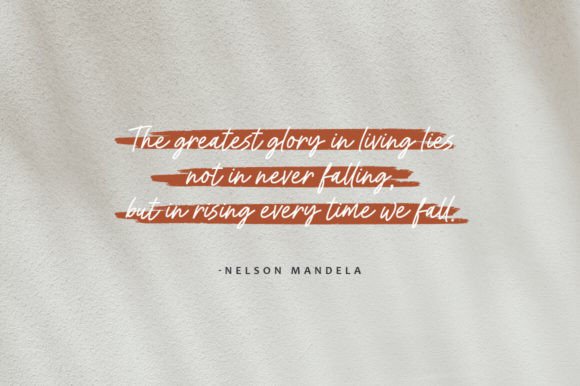
Hisdella Font: A Handwritten Font that Brings Life to Your Words
In the digital age, where communication is often reduced to mere text, finding a way to add a personal touch to your words can be a challenge. However, with Hisdella, a beautiful handwritten font, you can breathe life into your words and turn them into a visual poetry of strokes and curves. In this article, we’ll explore the unique features of Hisdella and how it can elevate your designs to a new level of authenticity and personality.
What is Hisdella?
Hisdella is a carefully crafted handwritten font that captures the essence of genuine handwriting in a digital realm. Each character in Hisdella is a testament to the art of penmanship, with a unique charm that resonates with authenticity. Whether you’re creating personal messages, invitations, or adding a touch of authenticity to your designs, Hisdella adds a warm and human touch.
Key Features of Hisdella
- Handwritten with care: Hisdella is crafted with care to retain the natural flow and irregularities of real handwriting, creating a unique charm that resonates with authenticity.
- Perfect for personal projects: Hisdella is perfect for projects that require a personal and approachable feel, such as personal messages, invitations, and social media posts.
- Authentic and unique: Hisdella’s unique character and handwriting style make it stand out from other fonts, adding a touch of personality to your designs.
The Art of Handwriting in a Digital Realm
Handwriting is an art form that has been around for centuries, with each stroke and curve telling a story. In the digital age, handwriting has taken on a new form, with fonts like Hisdella bringing the art of handwriting to the digital realm. With Hisdella, you can add a touch of personality to your designs, making them more relatable and engaging.
Benefits of Using Handwritten Fonts like Hisdella
- Adds a personal touch: Handwritten fonts like Hisdella add a personal touch to your designs, making them more relatable and engaging.
- Creates a unique identity: Hisdella’s unique character and handwriting style create a unique identity for your brand or personal project.
- Evokes emotions: Handwritten fonts like Hisdella evoke emotions and create a connection with the reader.
How to Use Hisdella in Your Designs
Hisdella is a versatile font that can be used in a variety of designs, from personal messages to business projects. Here are some tips on how to use Hisdella in your designs:
Design Tips for Using Hisdella
- Use it for headings and titles: Hisdella is perfect for headings and titles, adding a touch of personality and elegance to your designs.
- Pair it with other fonts: Hisdella can be paired with other fonts to create a unique and visually appealing design.
- Experiment with colors and textures: Hisdella can be used with a variety of colors and textures to create a unique and eye-catching design.
Why Choose Hisdella?
With so many fonts available, why choose Hisdella? Here are some reasons why Hisdella stands out from the rest:
Why Choose Hisdella?
- Unique and authentic: Hisdella is a unique and authentic handwritten font that adds a touch of personality to your designs.
- Perfect for personal projects: Hisdella is perfect for personal projects, such as invitations, social media posts, and personal messages.
In conclusion, Hisdella is a beautiful handwritten font that brings life to your words and adds a touch of personality to your designs. With its unique character and handwriting style, Hisdella is perfect for projects that require a personal and approachable feel. Whether you’re creating personal messages, invitations, or adding a touch of authenticity to your designs, Hisdella is the perfect choice.